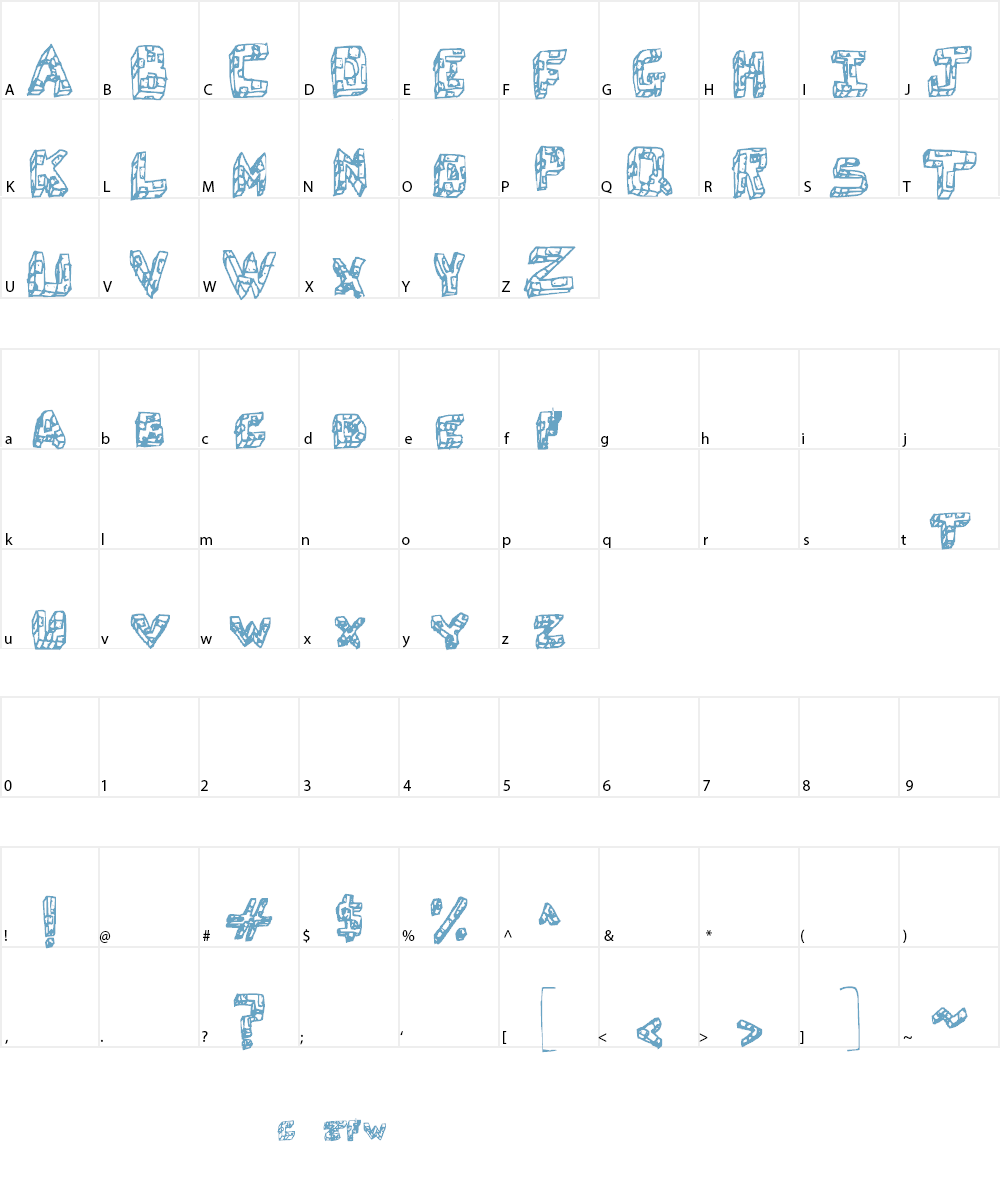
This is the kind of writing I put on the back of my Japanese test. My teacher was convinced that fish can have legs. So I drew them on the back of my test :)